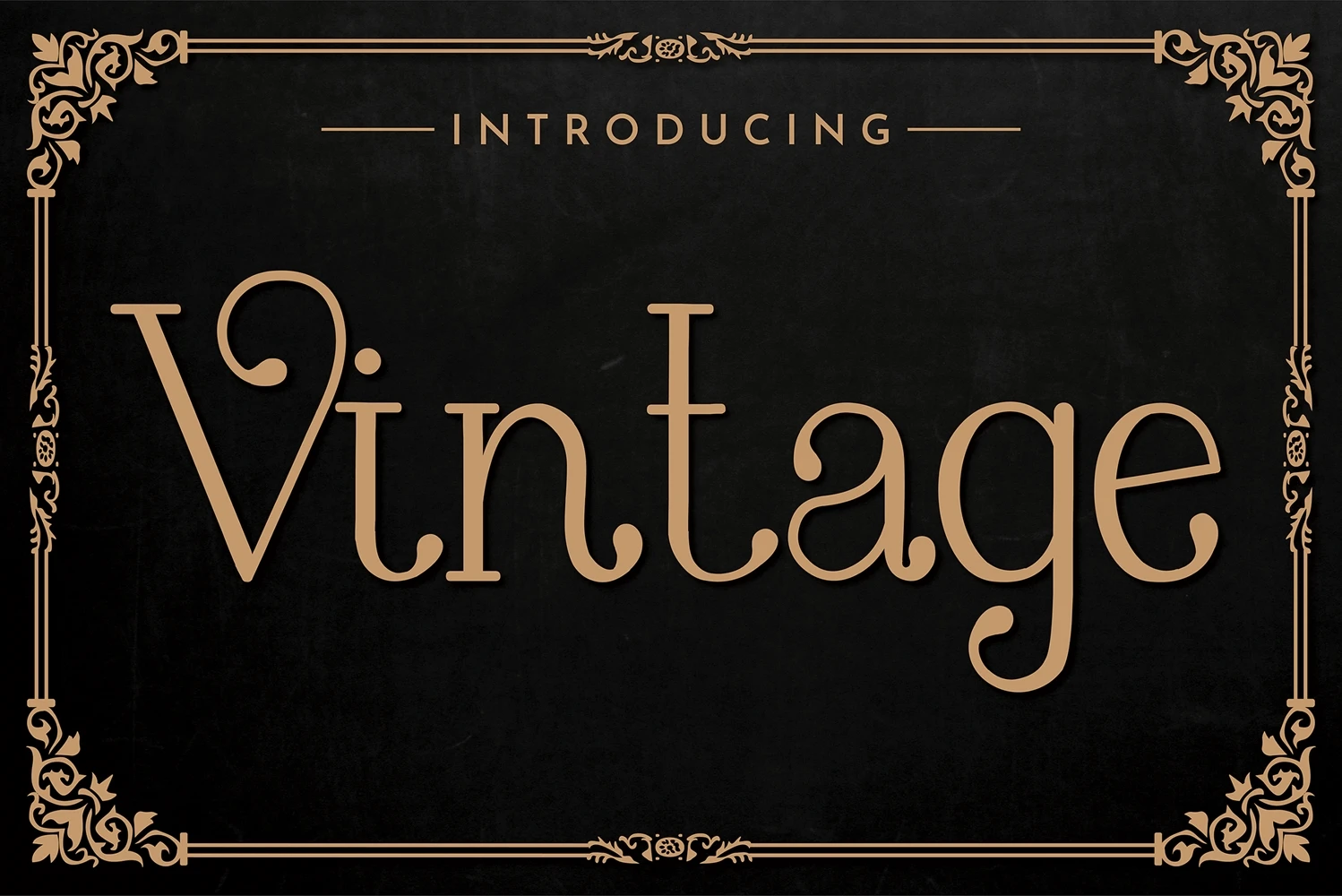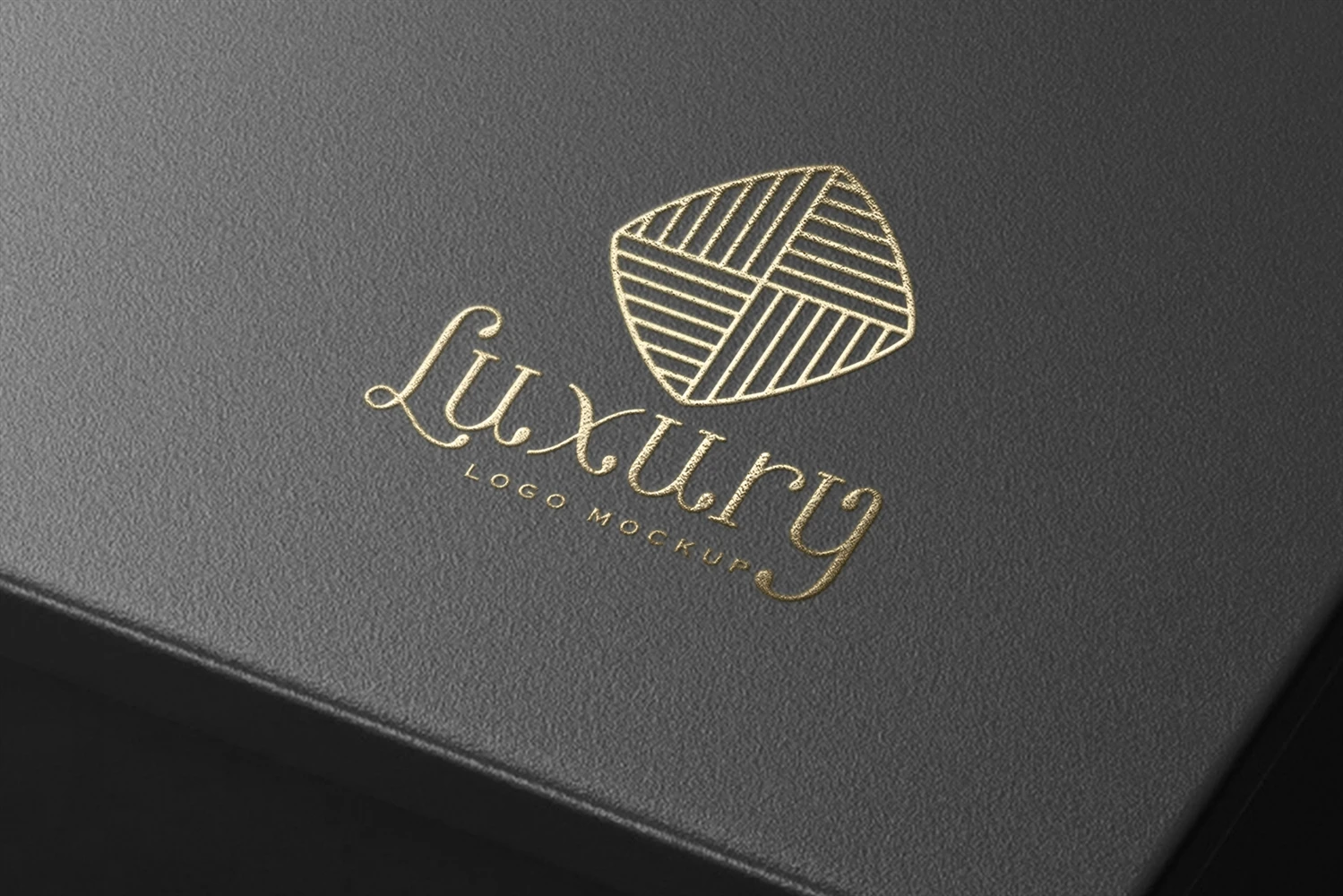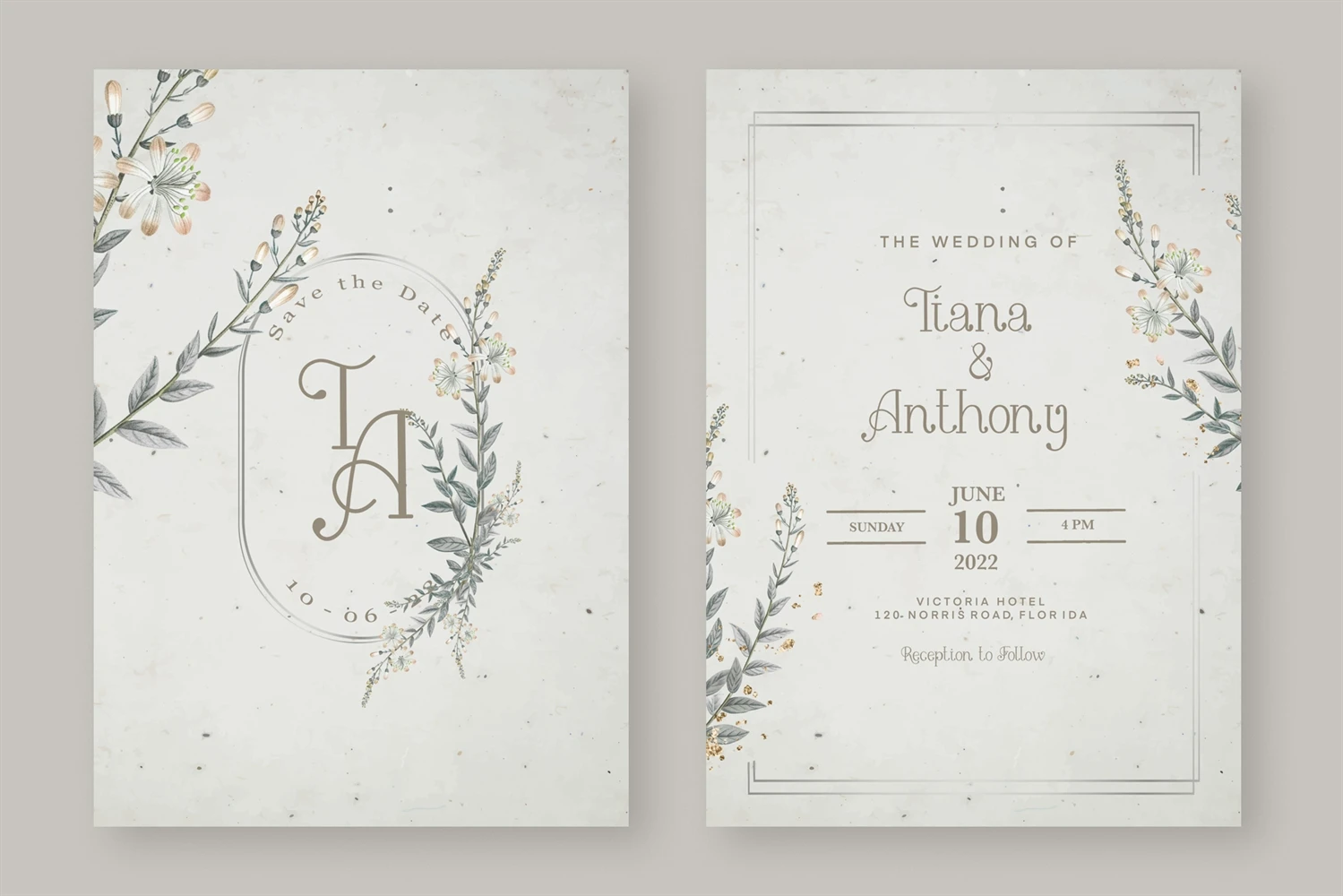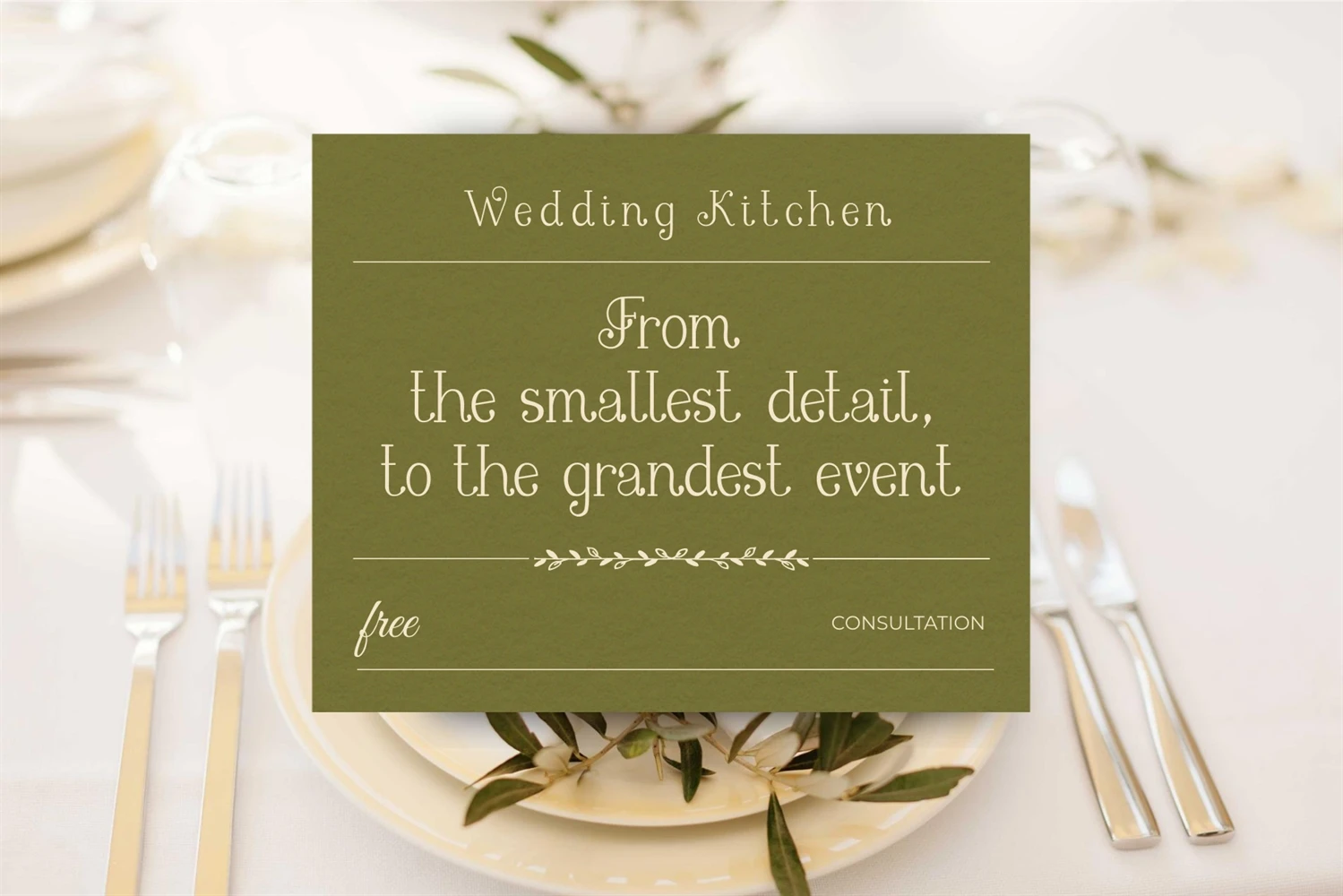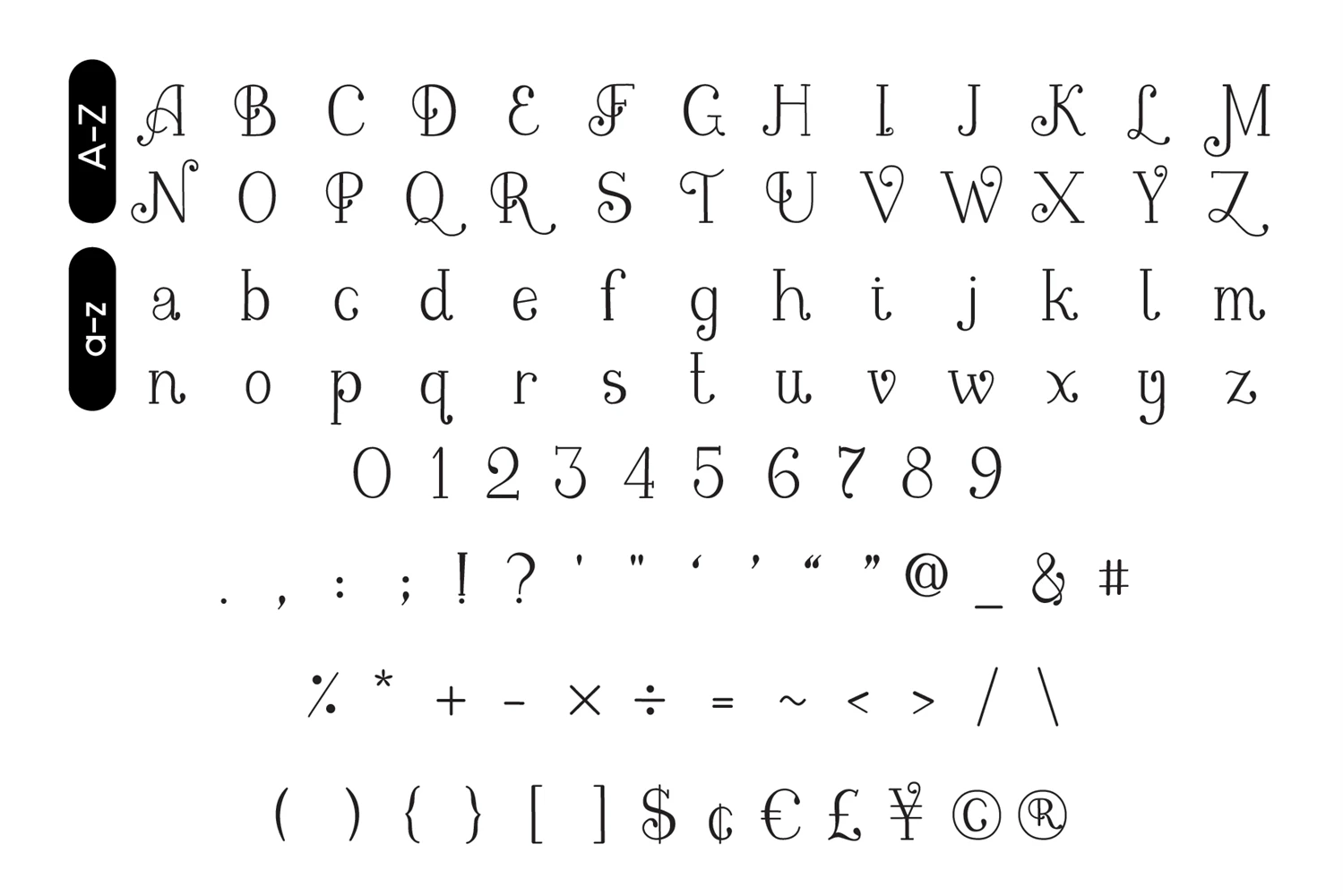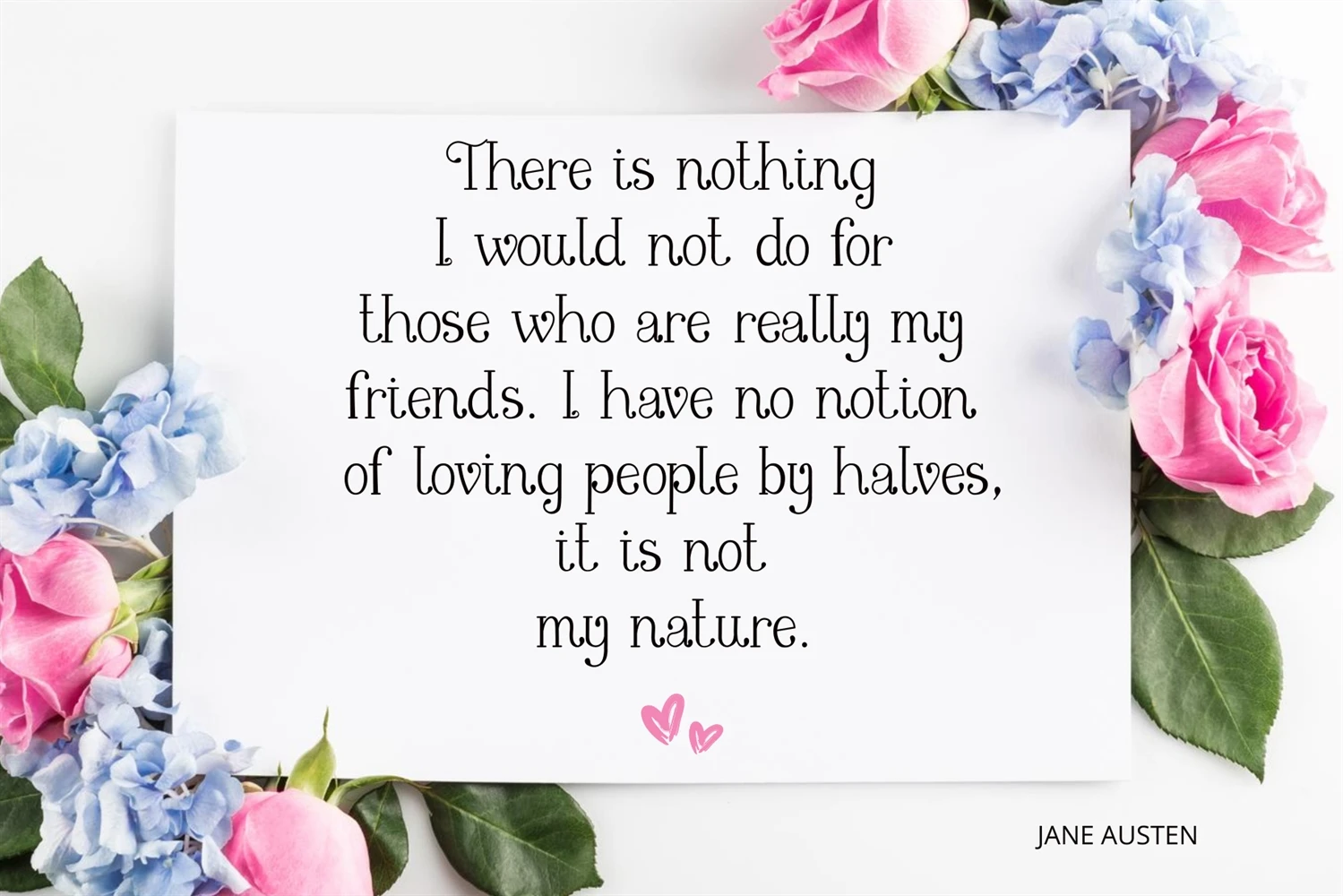
Vintage is an easy-to-read and comfortable serif font. You can use it for various projects, such as blog posts, logos, branding, ads, invitations, greeting cards, planners, photo albums, decorations, and much more.